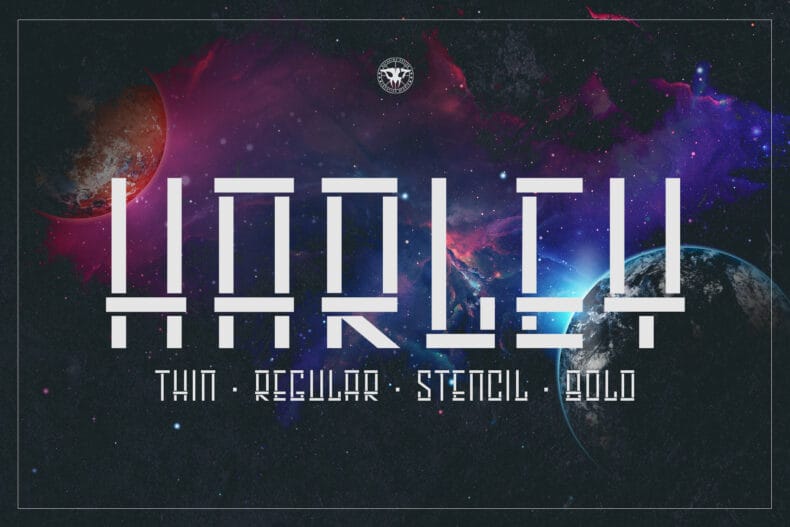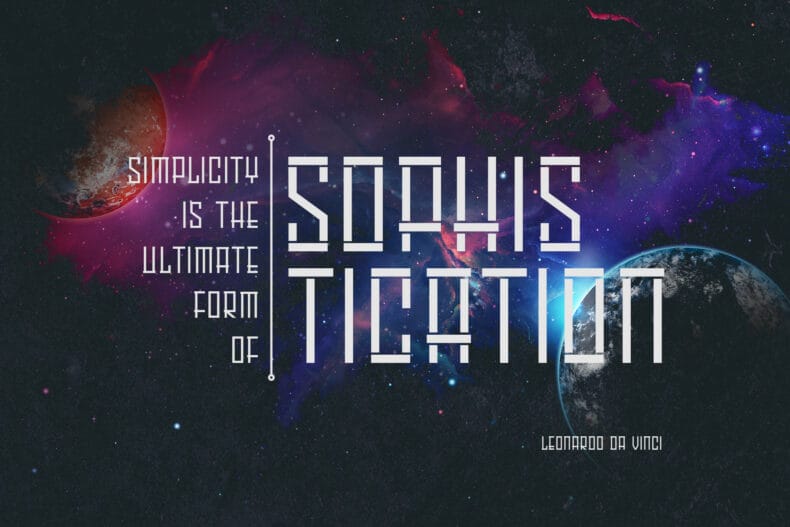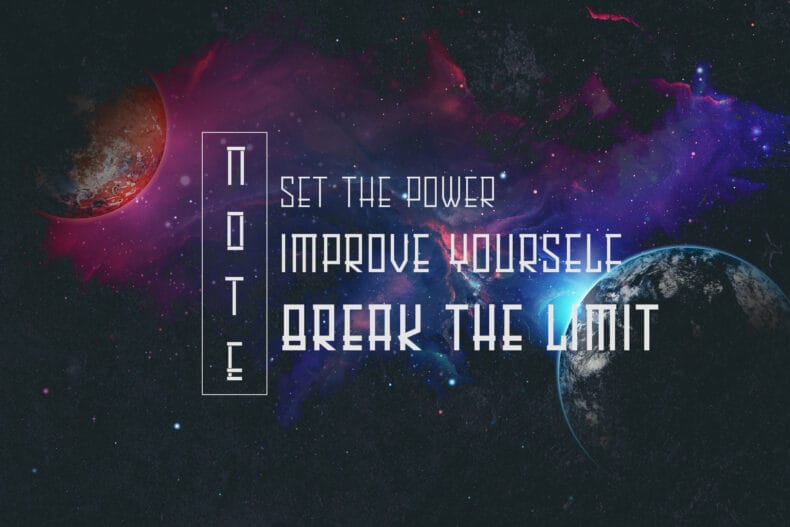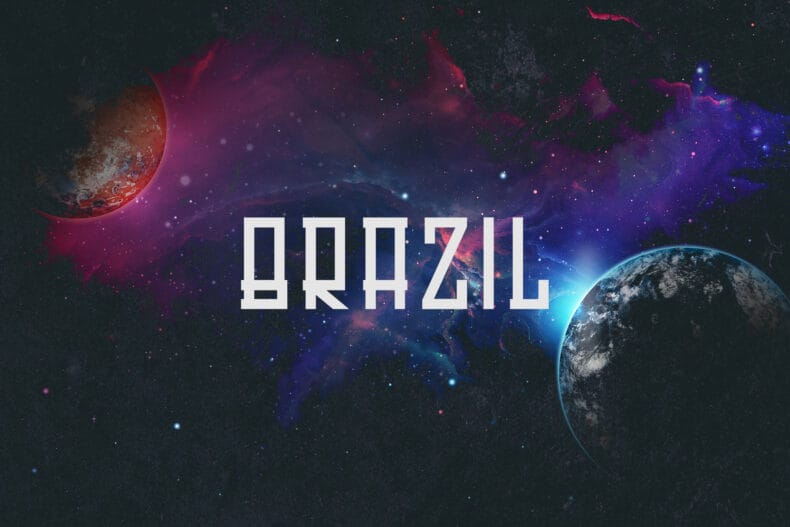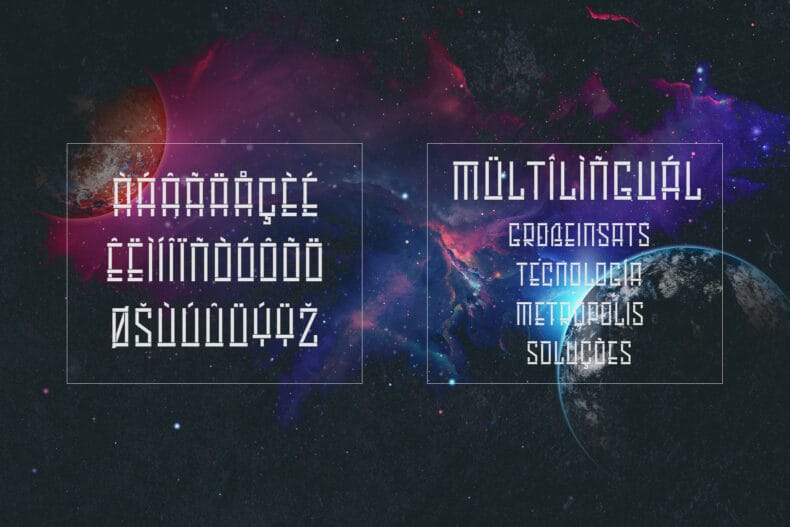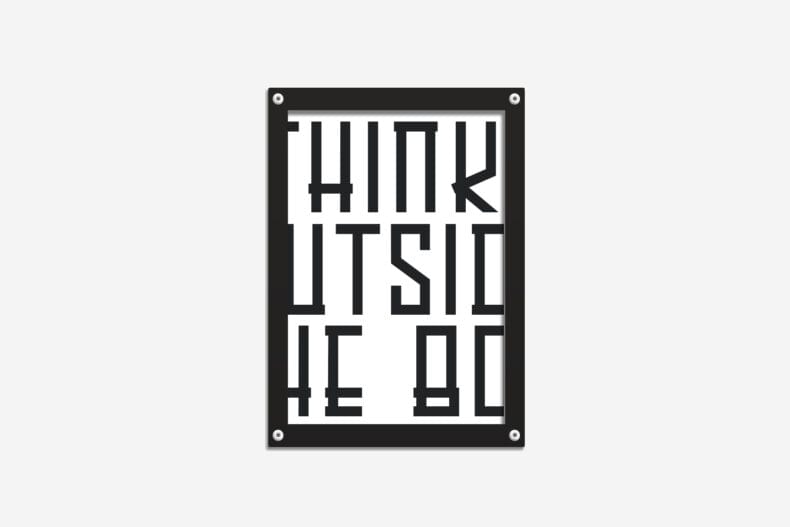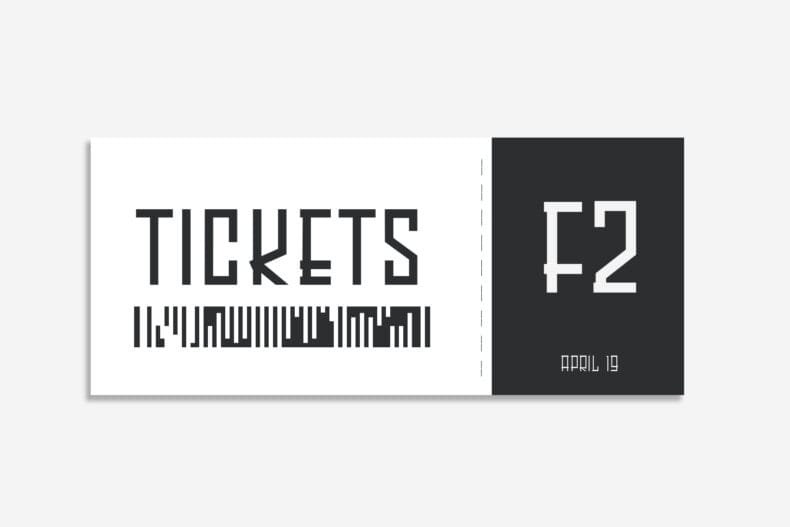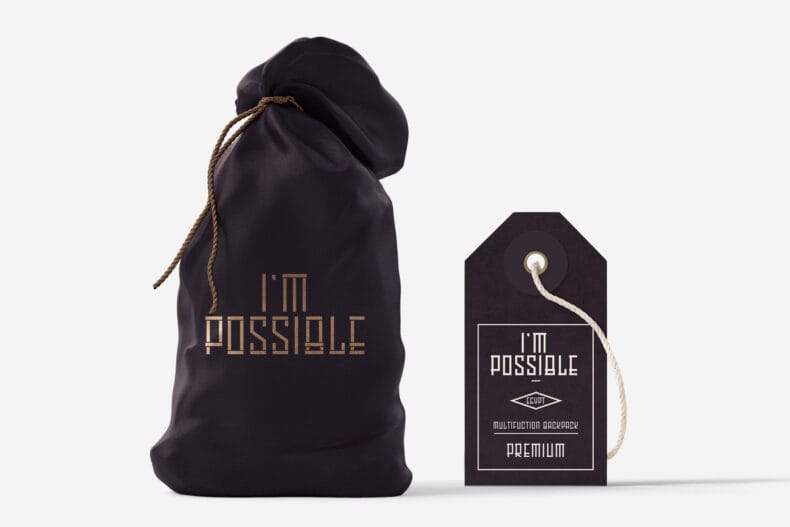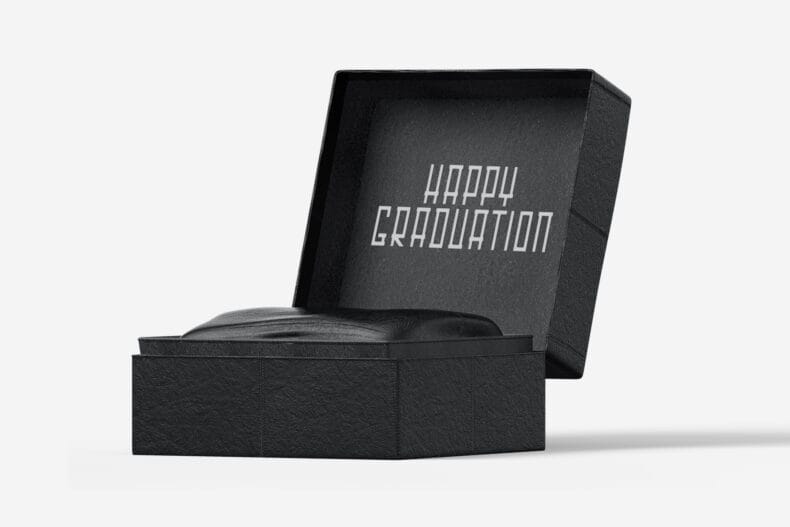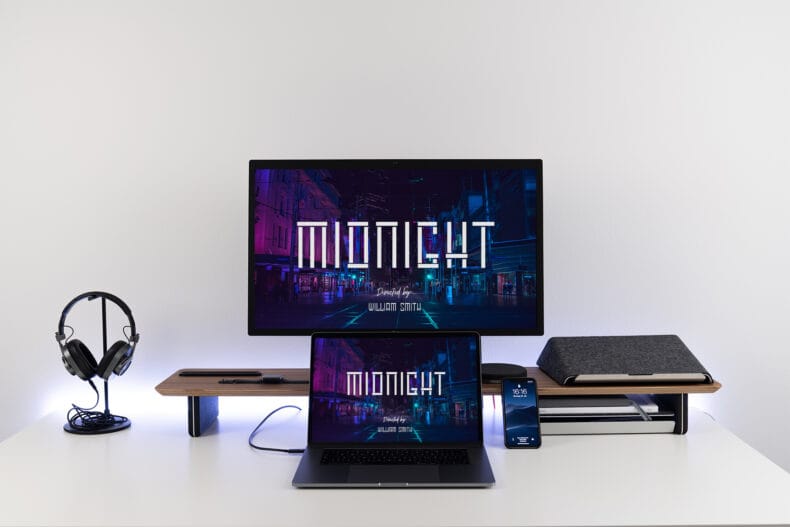
HARLEY, Display Font
HARLEY is all caps Sans Family with three weight, thin, regular, bold, and stencil version for regular weight. The design anatomy is simple, only straight shapes with no curves and it’s suitable for sports logo, poster, headline, products design, print design, etc. Harley also support standard multilingual characters.